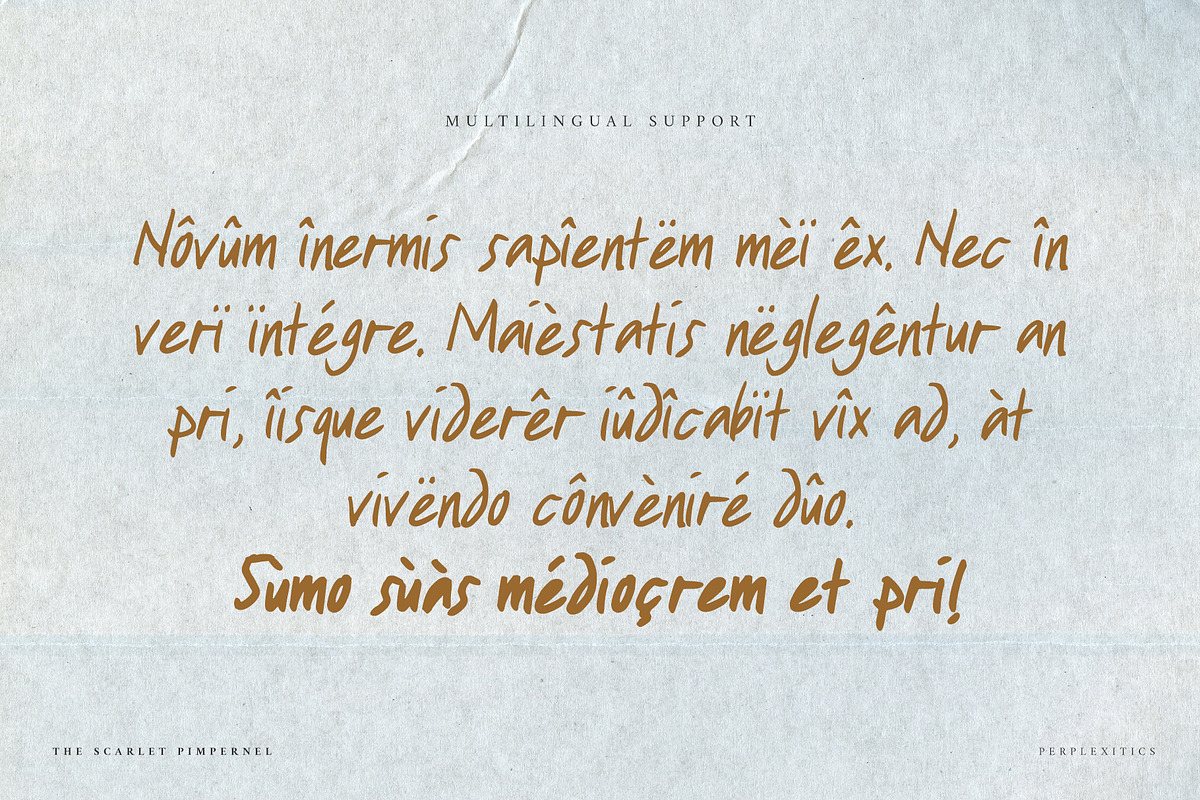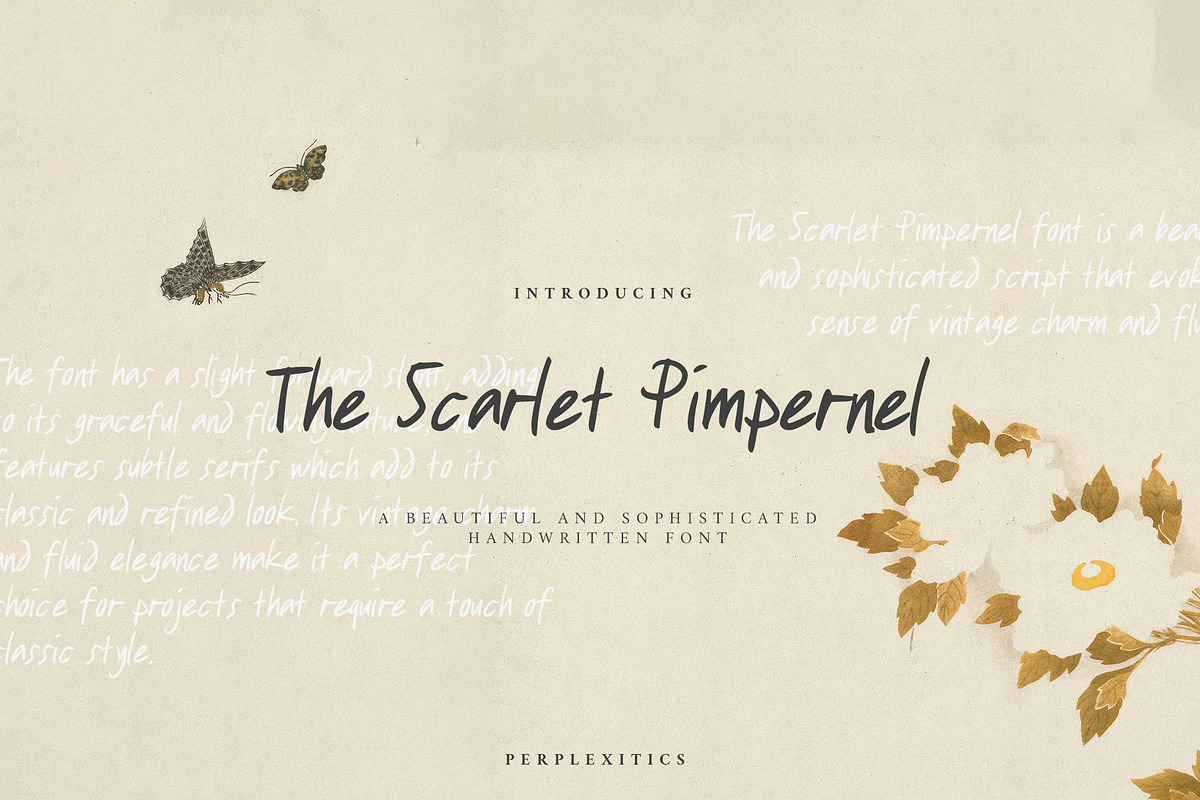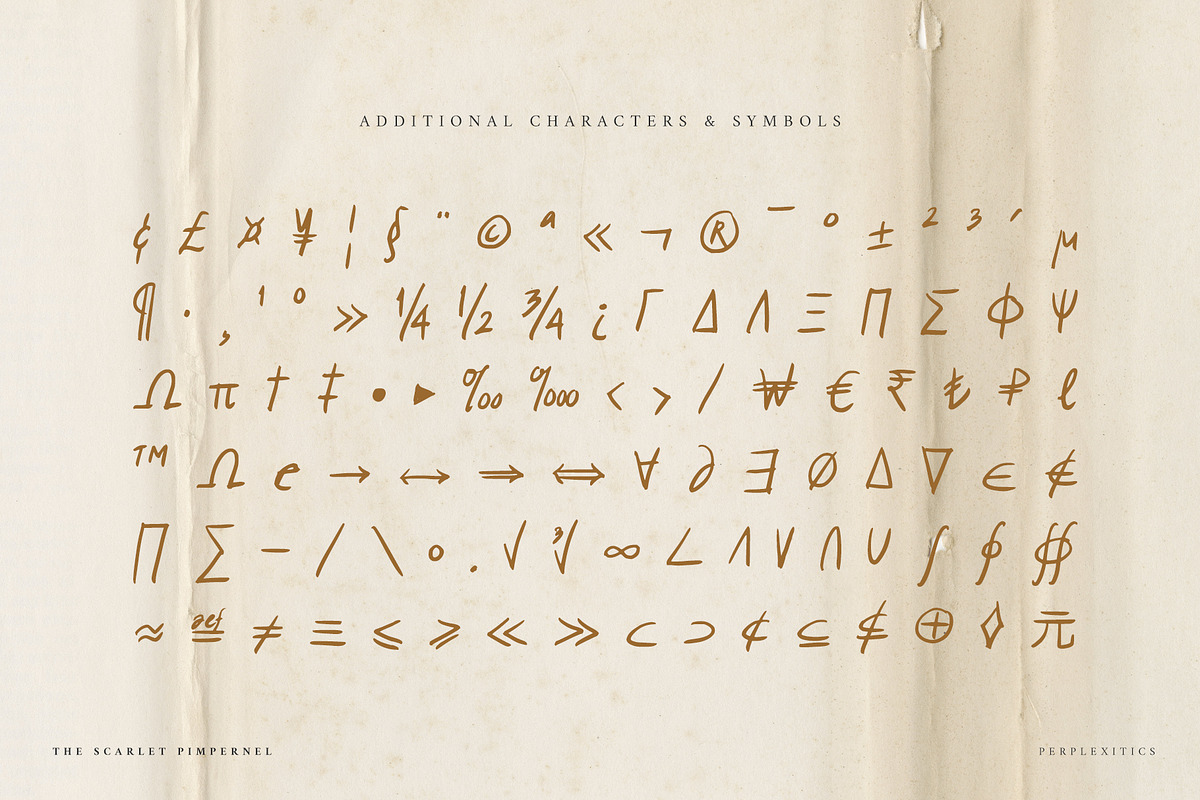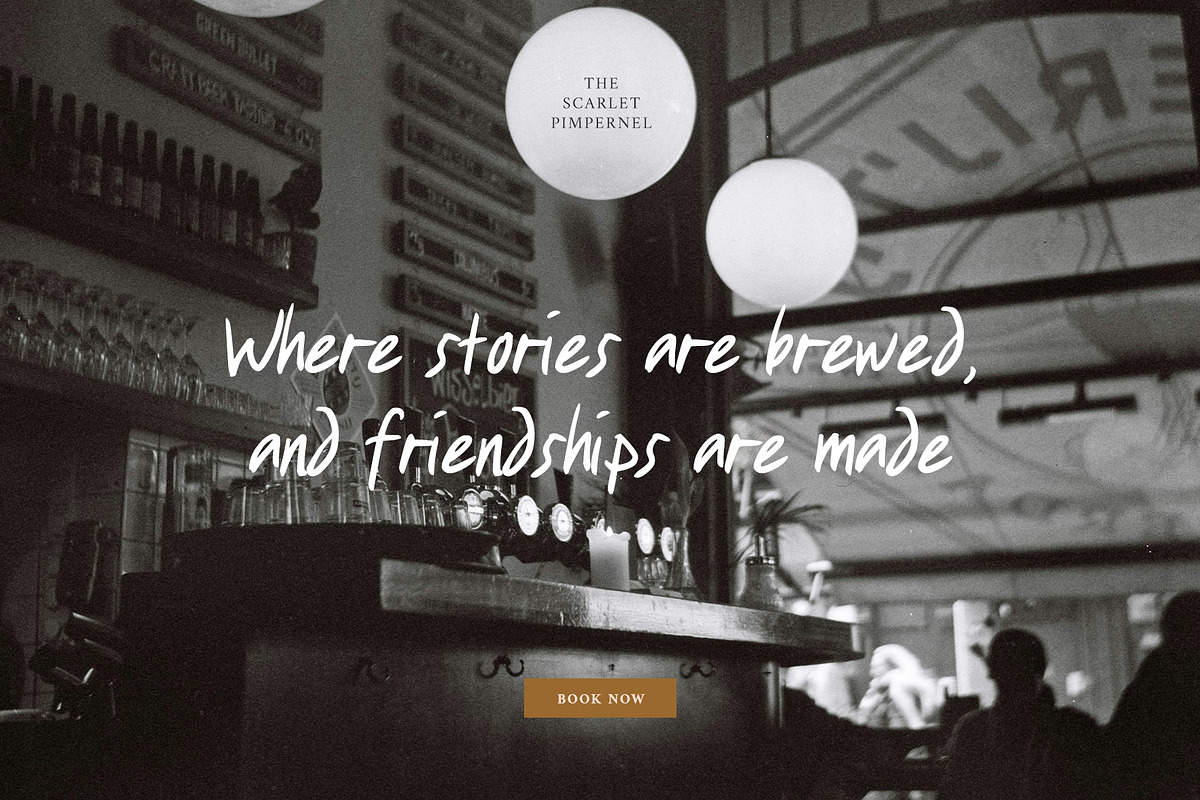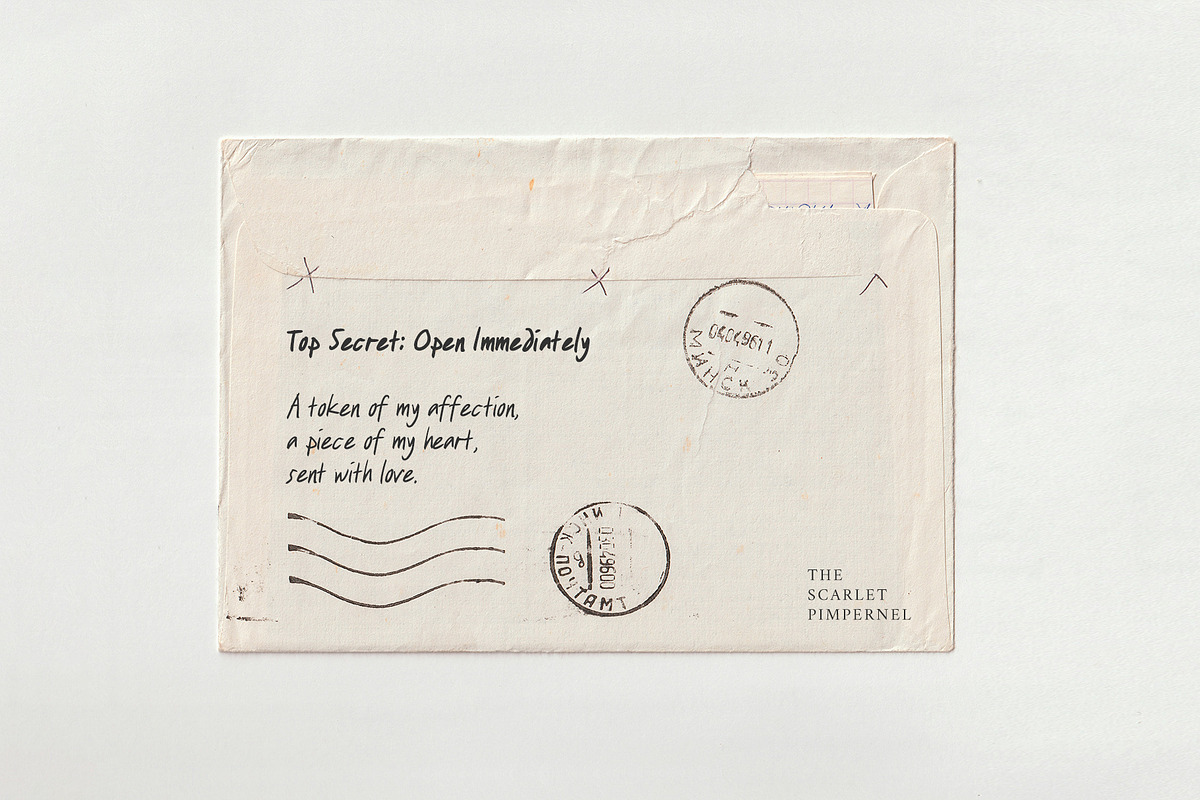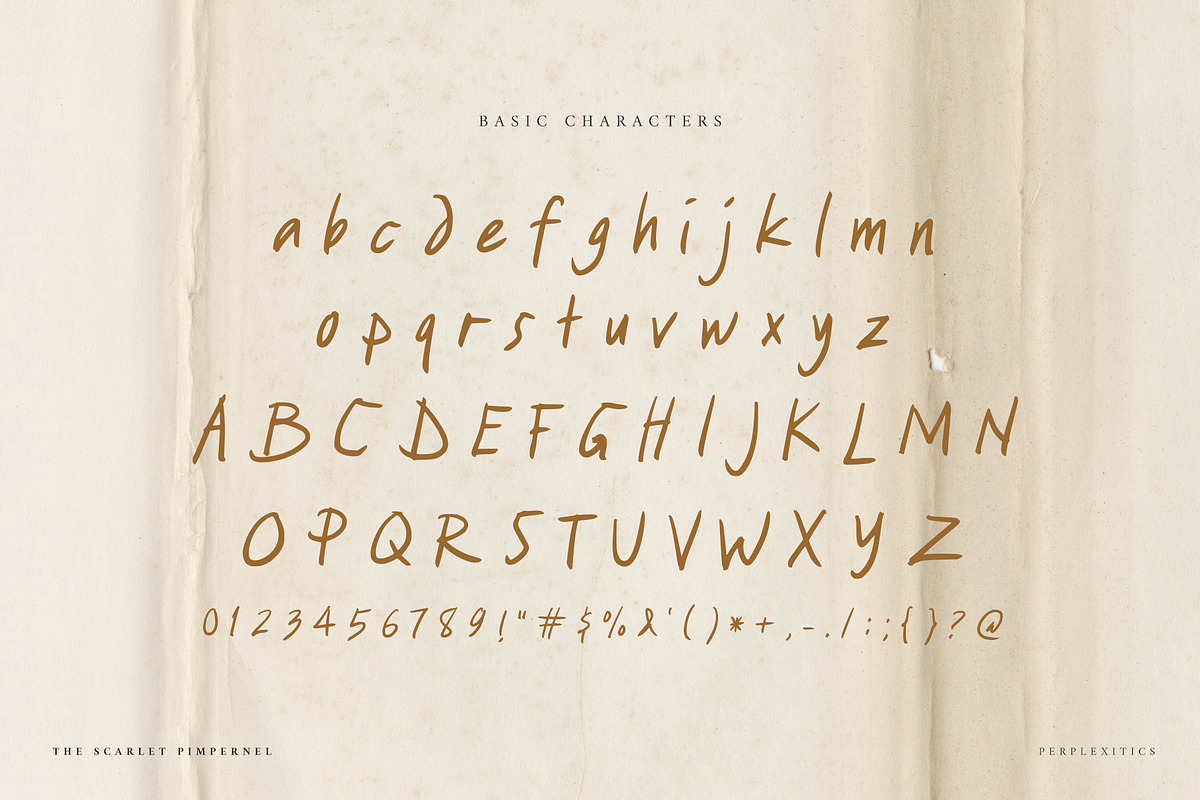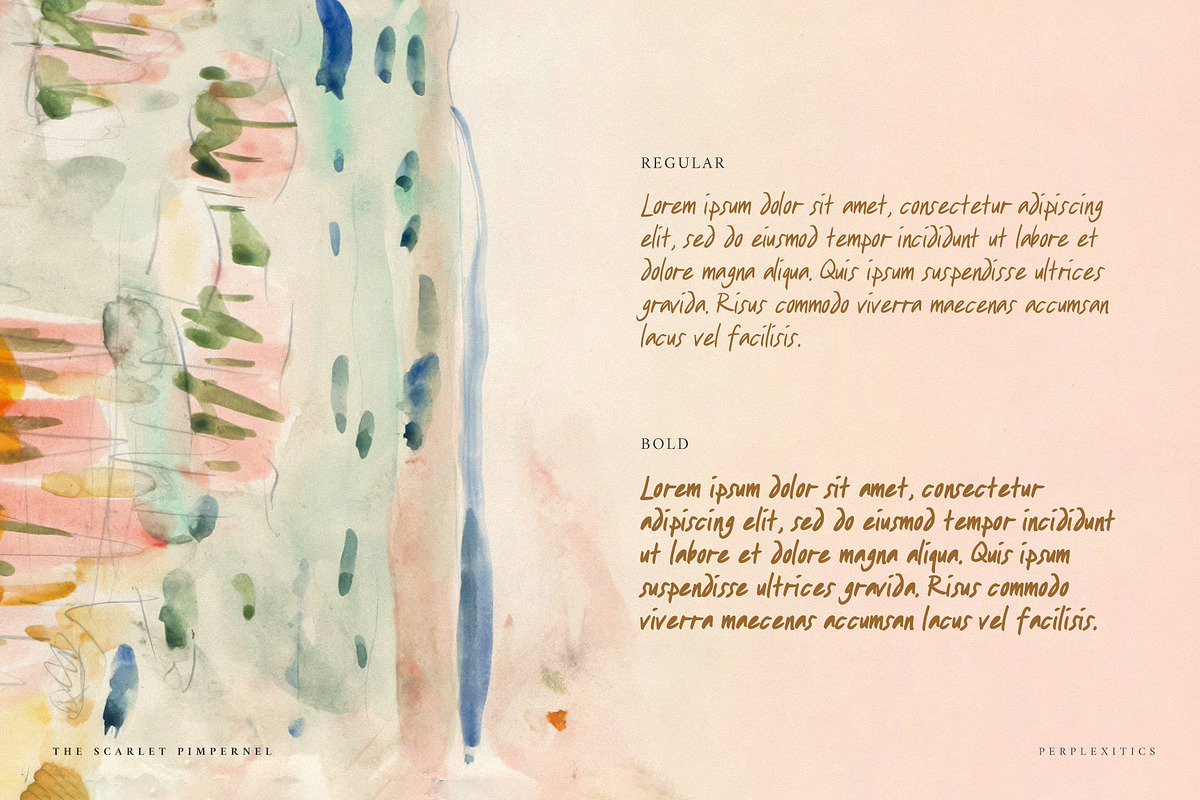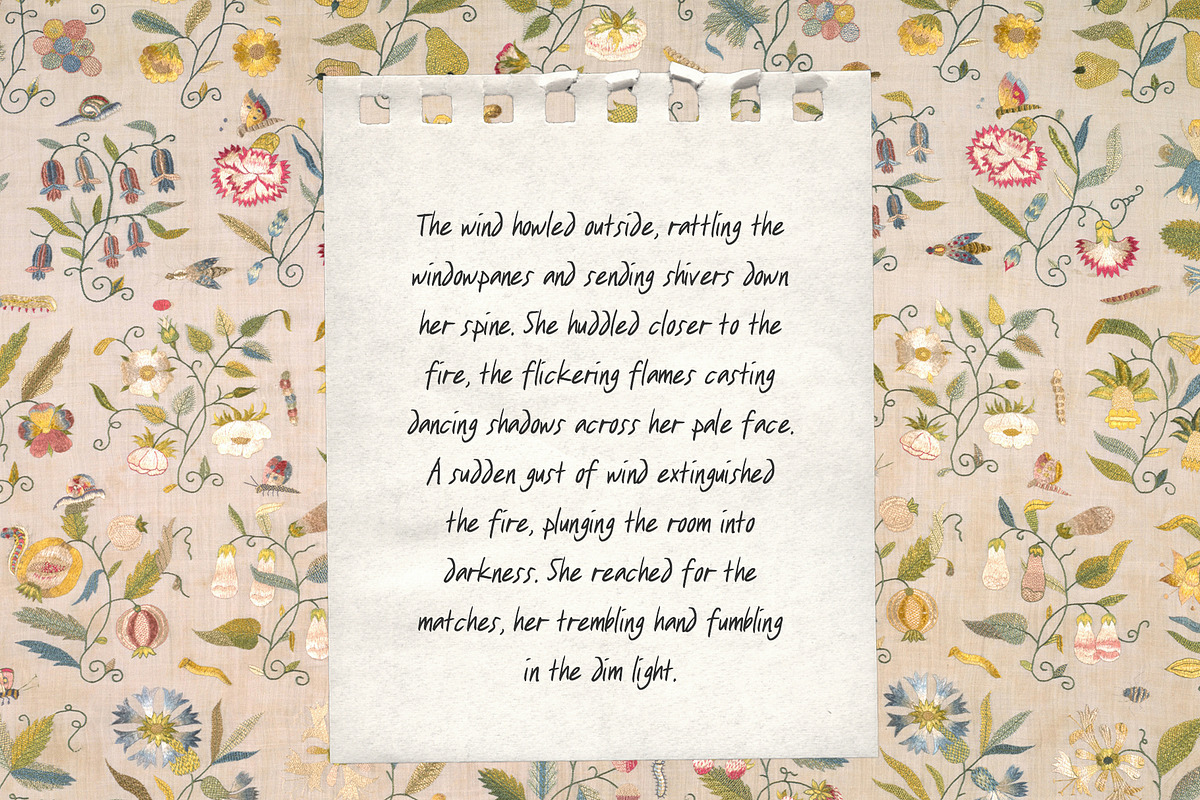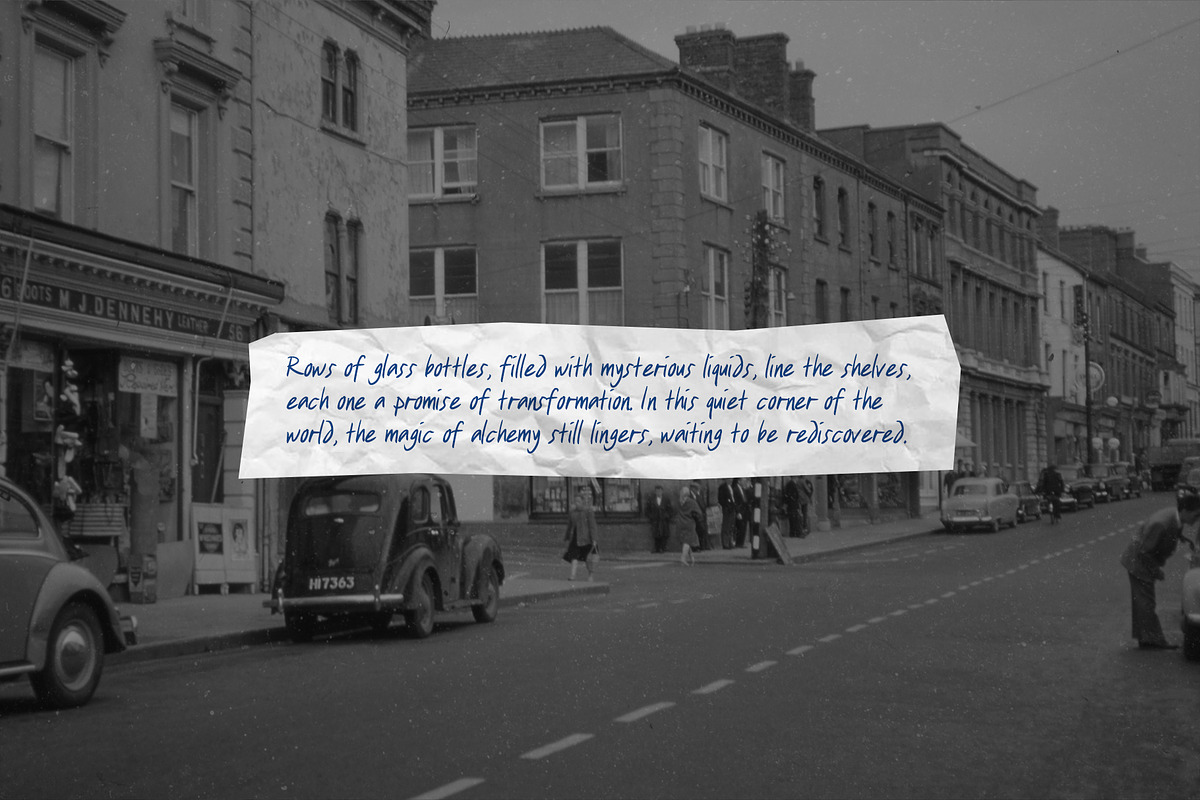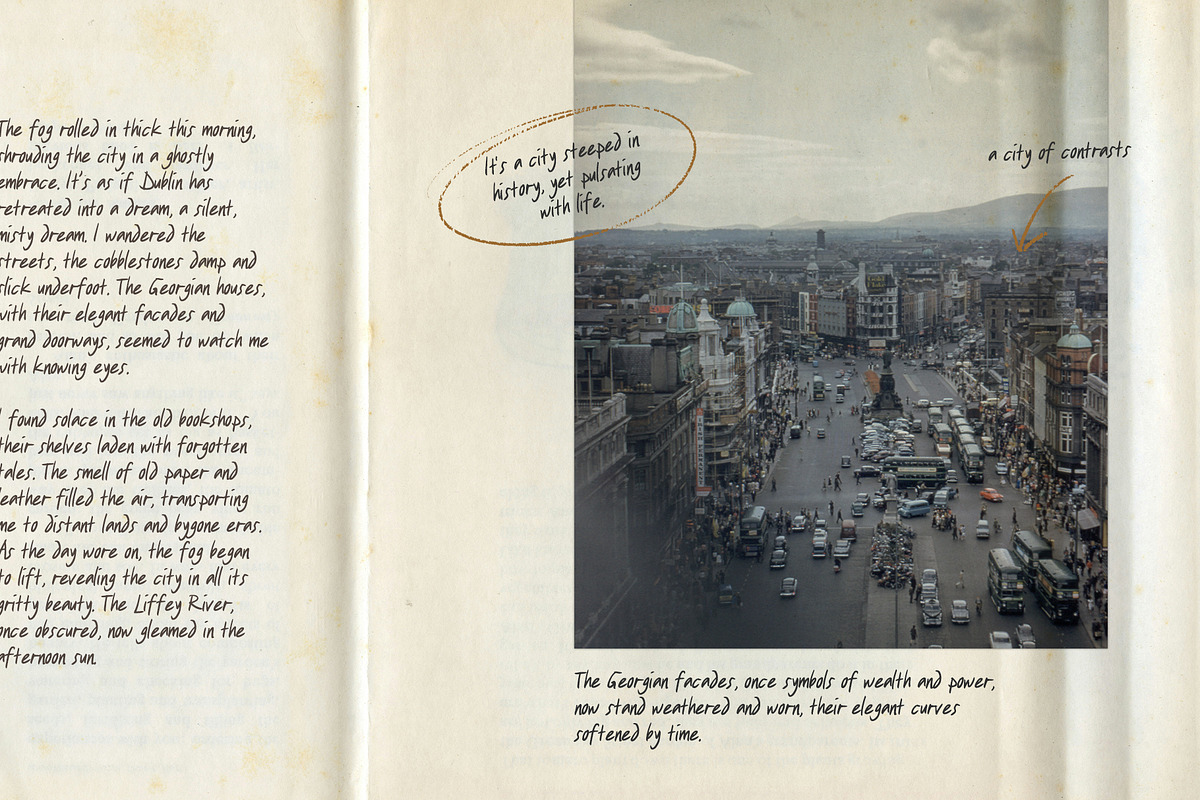
The Scarlet Pimpernel Handwritten
The Scarlet Pimpernel font is a beautiful and sophisticated script that evokes a sense of vintage charm and fluidity. The font has a slight forward slant, adding to its graceful and flowing nature, and features subtle serifs that add to its classic and refined look. Its vintage charm and fluid elegance make it a perfect choice for projects that require a touch of classic style.
The Scarlet Pimpernel Handwritten Font is packed with everything you need, including uppercase and lowercase letters, numbers, and punctuation. Multilingual support.